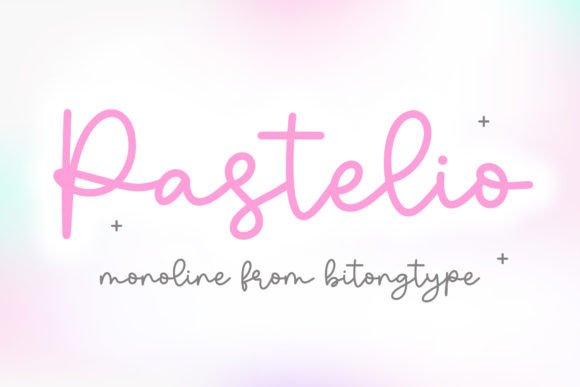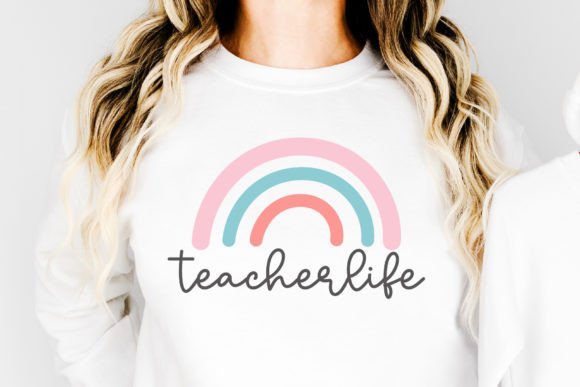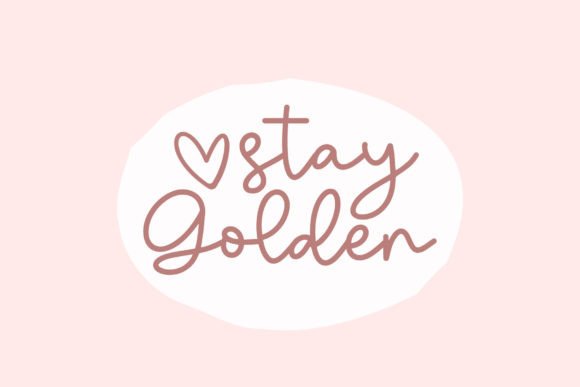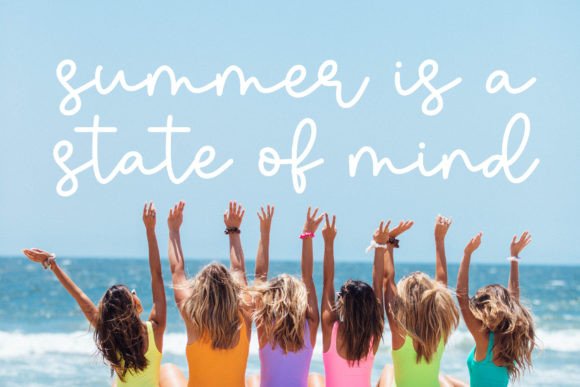
Pastelio Font
About the Pastelio Font
Discover the charm of Pastelio Font. This font is a perfect blend of modern aesthetics and classic appeal. Pastelio is a sweet and cute handwritten font. Fall in love with its incredibly versatile style and use it to create gorgeous wedding invitations, beautiful stationary art, eye-catching social media posts, and much more!
Pastelio’s playful charm makes it ideal for projects requiring a touch of whimsy, such as branding for children’s products, wedding stationery, or social media graphics. It excels in short text applications like headlines, logos, and short quotes, adding a hand-drawn, personal touch. However, its informal nature makes it unsuitable for body text or lengthy content, as readability suffers at smaller sizes.
Pairing Pastelio with a clean sans-serif like Open Sans for body copy provides excellent contrast and readability. For a more sophisticated feel, consider pairing it with a delicate serif like Lora for a balanced elegance. Avoid pairing it with other script fonts, as this can create visual clutter.
Pastelio’s overall personality is undeniably friendly and approachable, conveying warmth and approachability. This makes it well-suited to brands focusing on happiness, creativity, and connection.
Pastelio Font Usage Examples
Pastelio Font Example